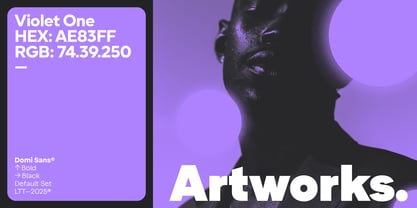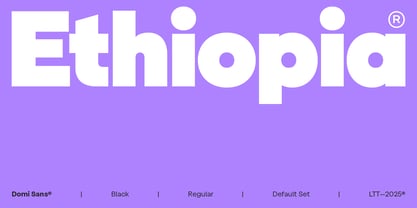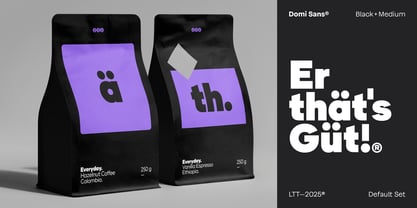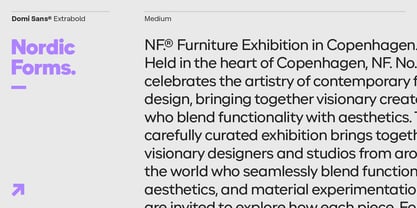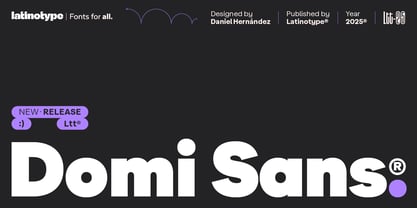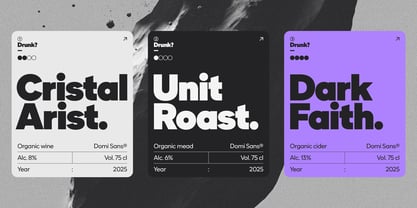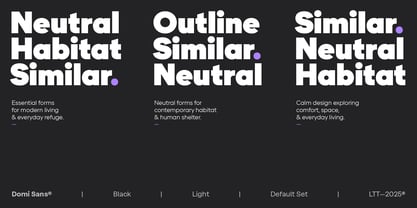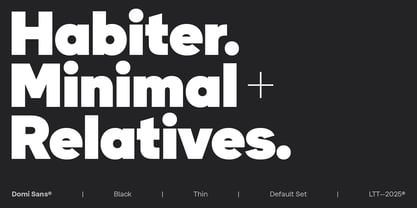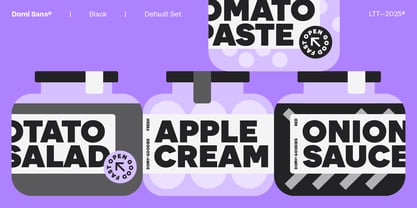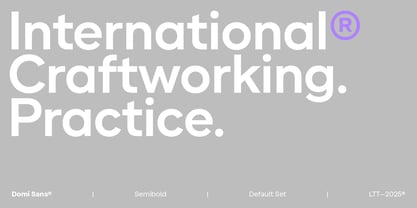
Domi
The Domi Font Family was designed by Daniel Hernández and published by Latinotype. Domi contains 18 styles and family package options. More about this family
Domi is a robust, straightforward sans serif typeface. Its design highlights the contrast between extreme weights—from Thin to Black—through closed forms, straight terminals, and restrained modulation, resulting in a confident and characterful tone. Designed by Daniel Hernández for Latinotype, Domi emphasizes the relationship between counterforms and rhythm, achieving a balance that works well both in typographic hierarchies and dense text blocks.
Its firm capital letters extend its versatility across industrial, fashion, cultural, signage, and graphic identity contexts, while the geometrically based lowercase provides structural clarity and style. Domi offers a renewed interpretation of 20th-century typographic rationalism, reimagined with a contemporary logic suited for flexible and purposeful visual systems. Simple allows us to connect faster.